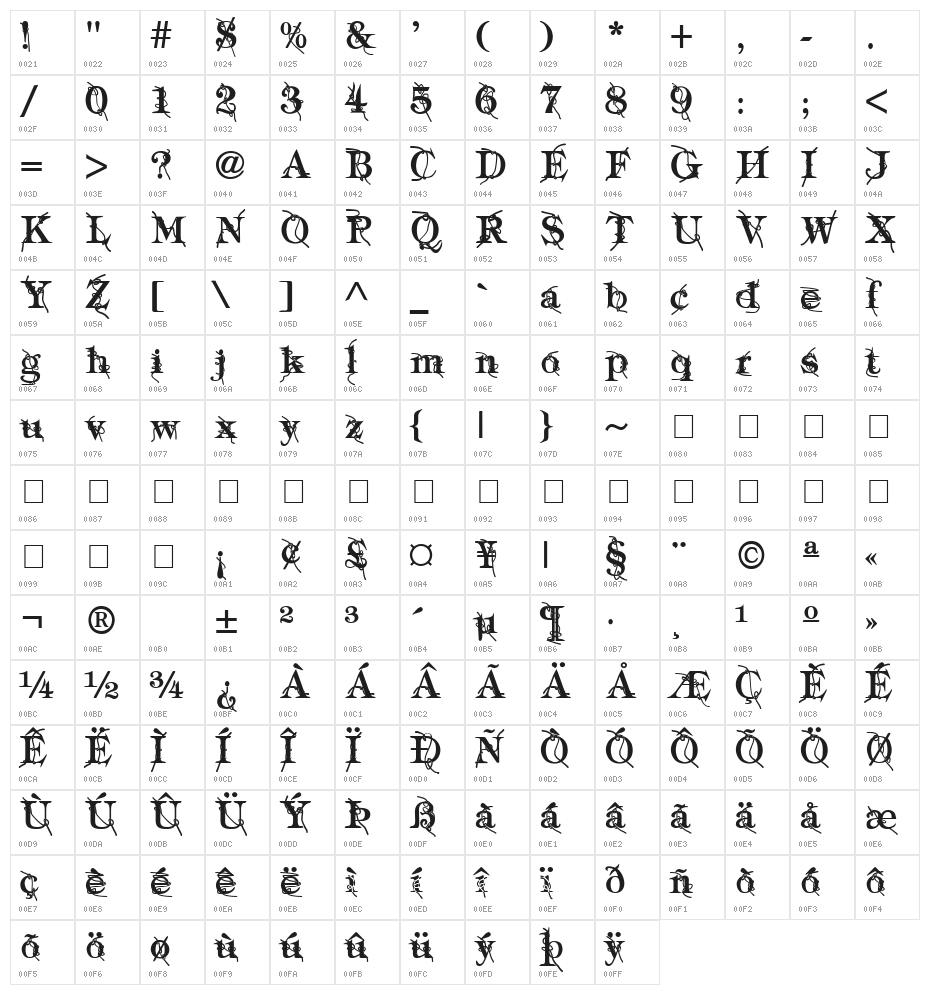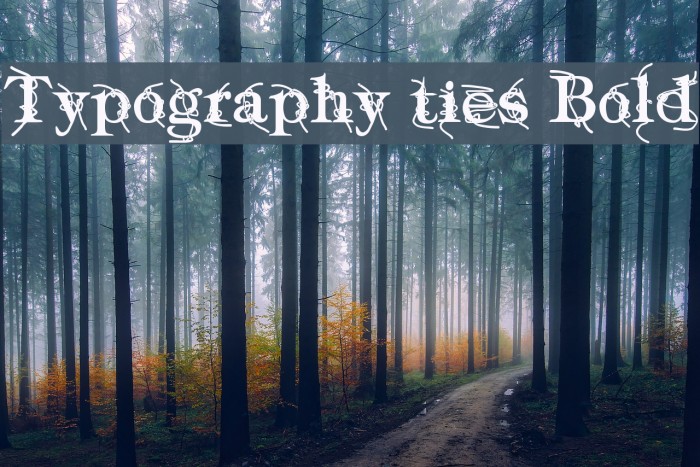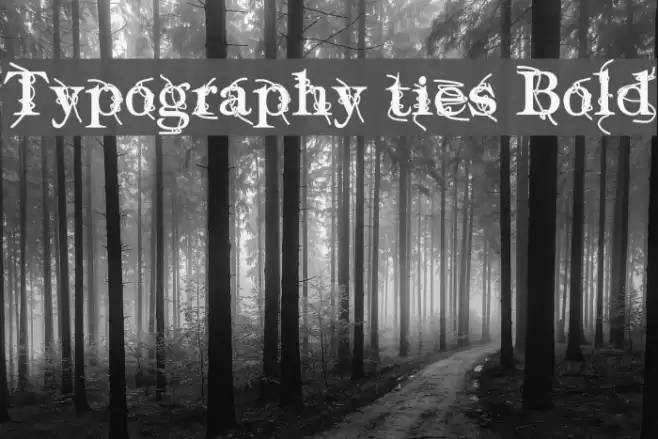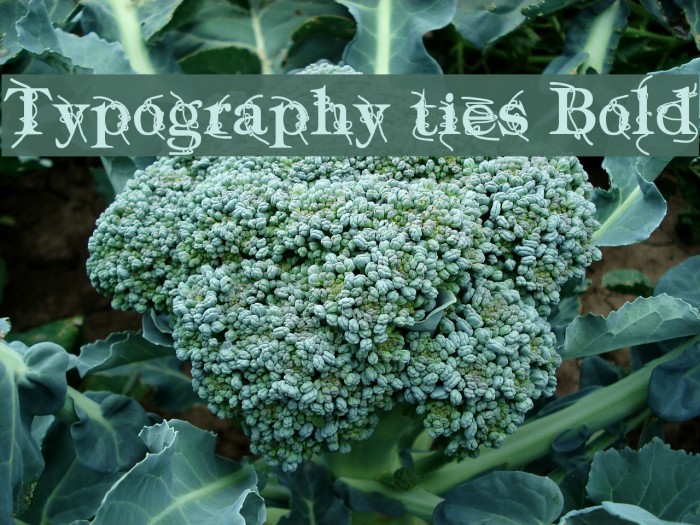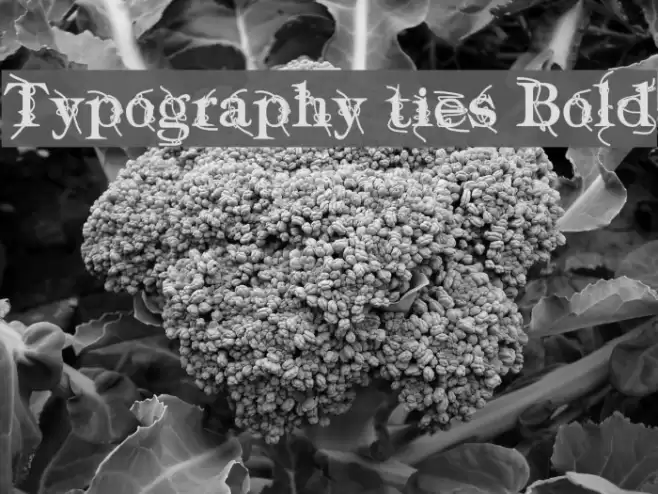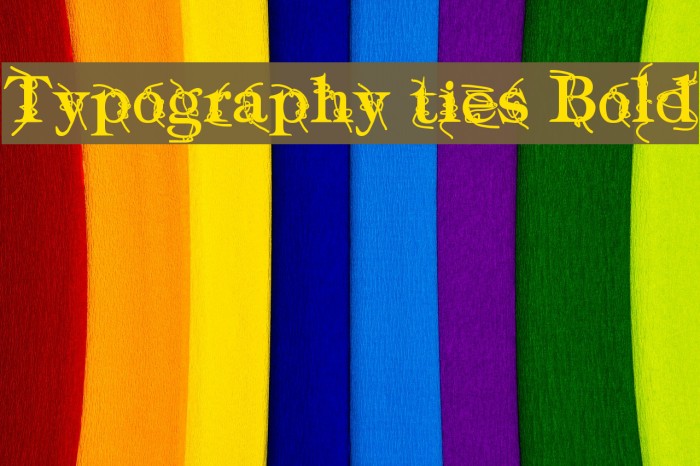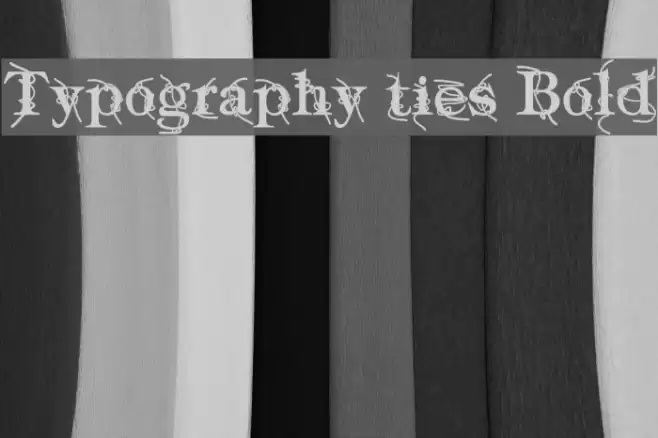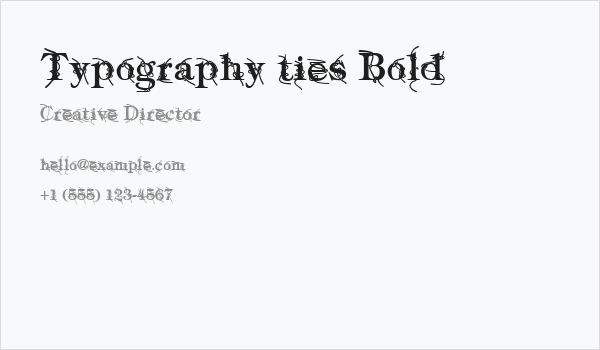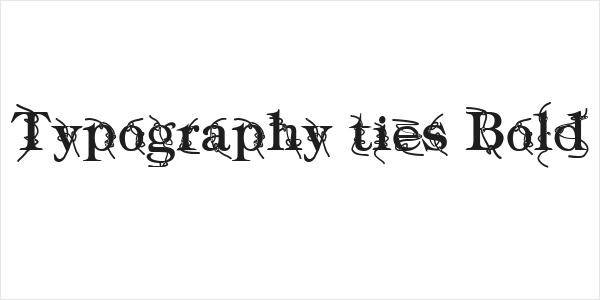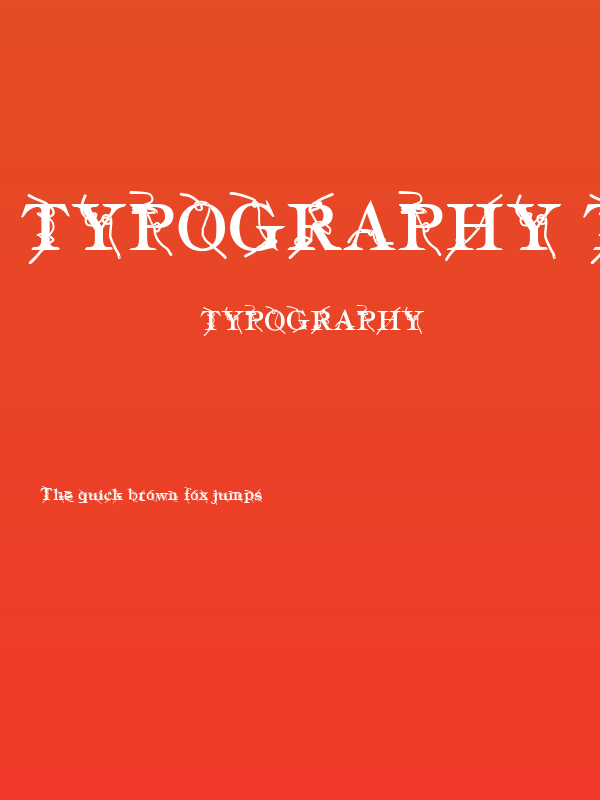
Typography ties Bold Font
Typography ties Bold Description
This font features an intricate and decorative style, characterized by its intertwining vine-like elements that wrap around each letter. The uppercase and lowercase letters maintain a consistent height and width, creating a balanced appearance. The numerals and special characters are equally adorned with these ornate details, making the font highly decorative. The overall design is bold and eye-catching, suitable for projects that require a unique and artistic touch. Its complexity and decorative nature make it less suitable for body text but ideal for headlines or artistic displays.
| Proposed Projects | Ideal for artistic projects, event posters, album covers, and any design requiring a bold, decorative touch. |